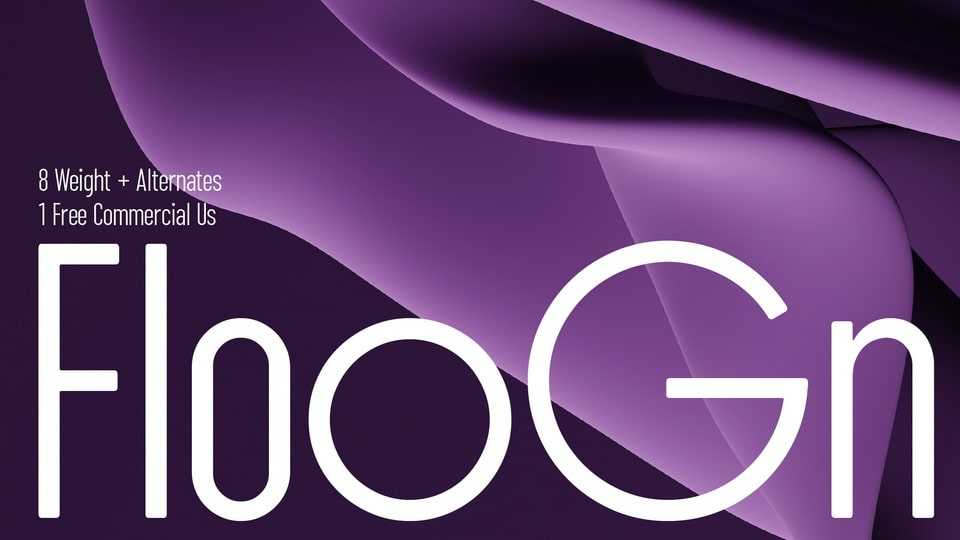
Download ZT Floogn font, a modern, dense sans serif typeface with a rounded look. ZT Floogn font is characterized by its balanced proportions, uniform stroke width, and subtle variations in typeforms.